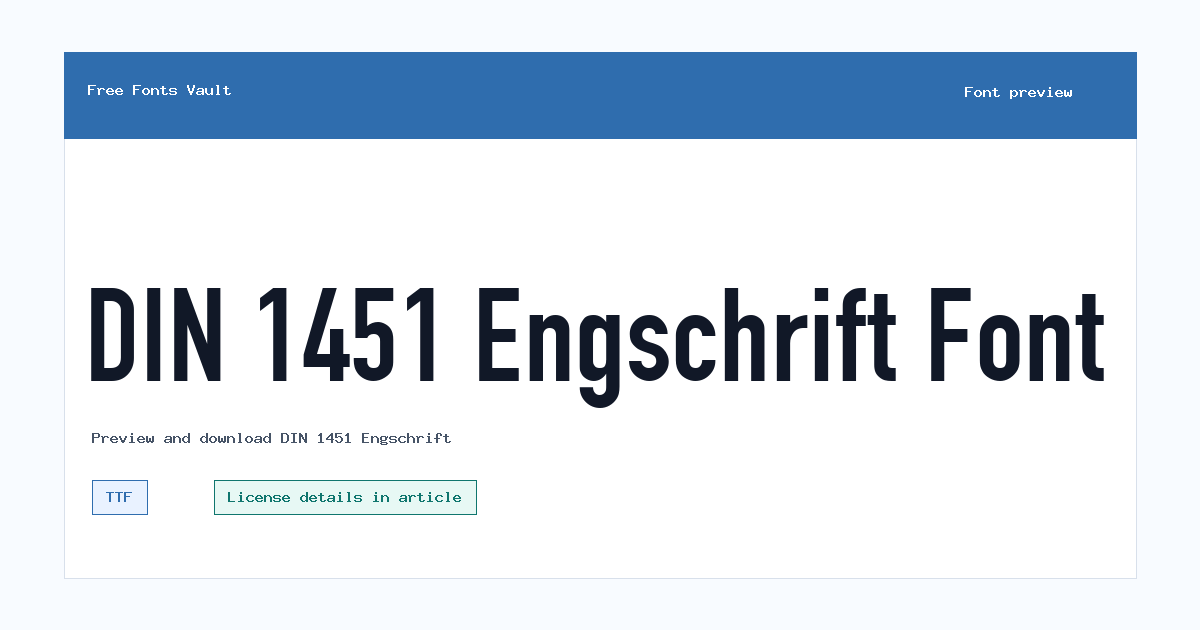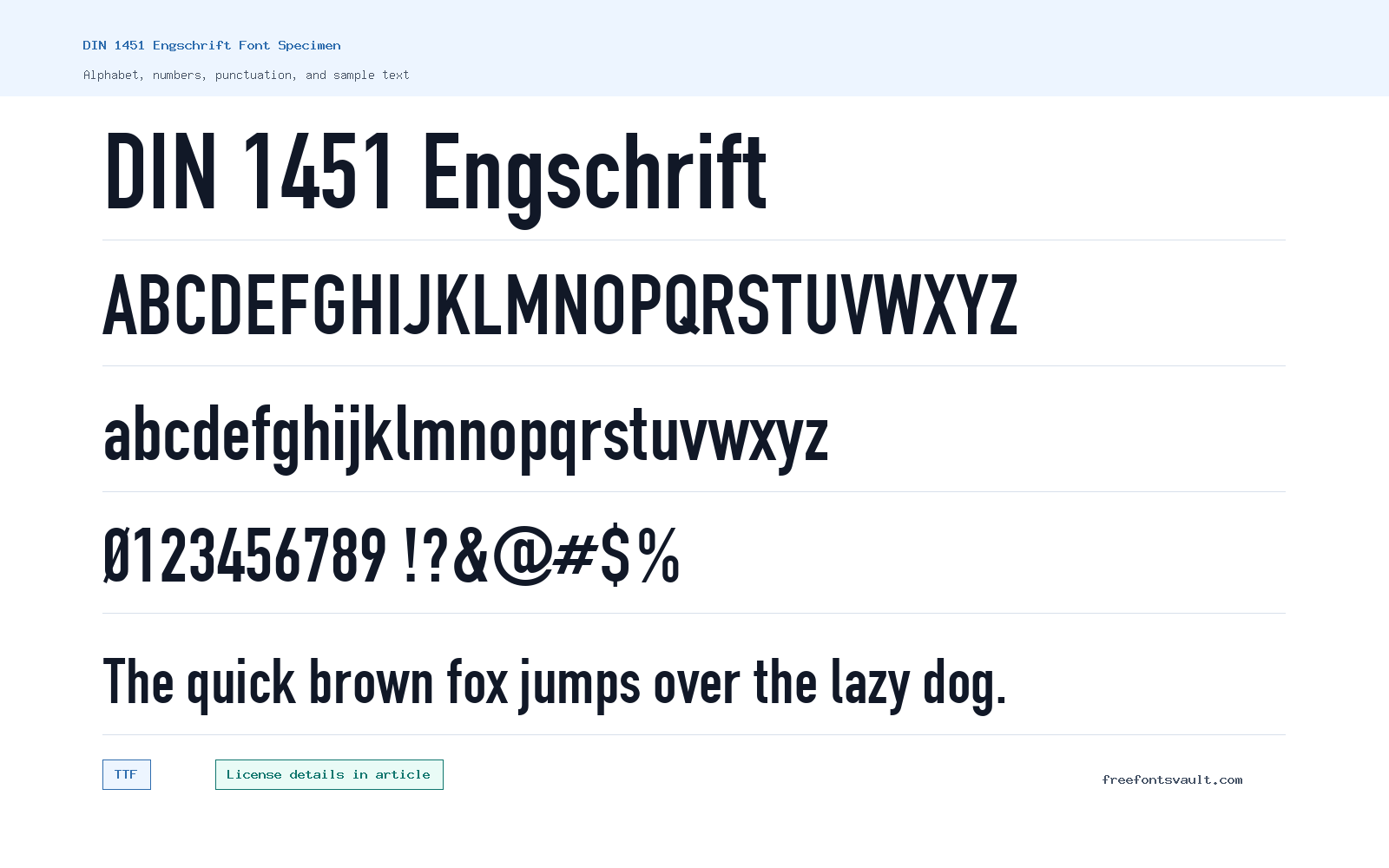
DIN 1451 Engschrift
DIN 1451 Engschrift font.
DIN 1451 Engschrift is a narrow sans serif with the direct, practical feel of German road, railway, and technical lettering. Its condensed shape helps text fit into tight spaces while keeping a clean industrial tone.
About DIN 1451 Engschrift
DIN 1451 is associated with German standard lettering defined in 1931 for traffic, administrative, technical, and wayfinding uses. Engschrift means the condensed or narrow style, so DIN 1451 Engschrift gives you the compact side of that DIN look: upright letters, plain strokes, and a sign-like rhythm that feels functional rather than decorative.
Use this font when you want a transport-inspired headline, a compact label, a technical graphic, or a poster title with a utilitarian edge. Because the letters are condensed, it works best for short text, names, numbers, interface labels, badges, route-style graphics, and display settings. For long paragraphs, pair it with a wider text font so the reading experience stays comfortable.
- Condensed sans serif letterforms with a technical, signage-inspired appearance
- Tall, compact proportions that help short words, route codes, numbers, and badges fit into tight horizontal spaces without losing the DIN-style structure
- Signage-style headlines, wayfinding graphics, route labels, and transport-themed designs
- Posters, badges, packaging marks, technical diagrams, UI labels, and compact title treatments
- Designers who want a disciplined German industrial tone without using a wide geometric sans serif
DIN 1451 is tied to German standard lettering rather than a single modern display-font designer. The Engschrift style follows the narrow, efficient lettering tradition used for transport, administration, and technical signs. For todayu2019s projects, treat this file as a DIN-inspired digital font and verify the exact file license before using it in final commercial work.
What kind of font is DIN 1451 Engschrift?
It is a condensed sans serif in the DIN 1451 style. The look is plain, narrow, and technical, with a strong connection to signage and wayfinding design.
What does Engschrift mean?
Engschrift means a condensed or narrow style. In practice, it means the letters take up less horizontal space than a regular-width DIN style.
Is DIN 1451 Engschrift good for body text?
It is better for short text than long reading. Use it for headlines, labels, signs, numbers, and compact display settings, then pair it with a wider font for paragraphs.